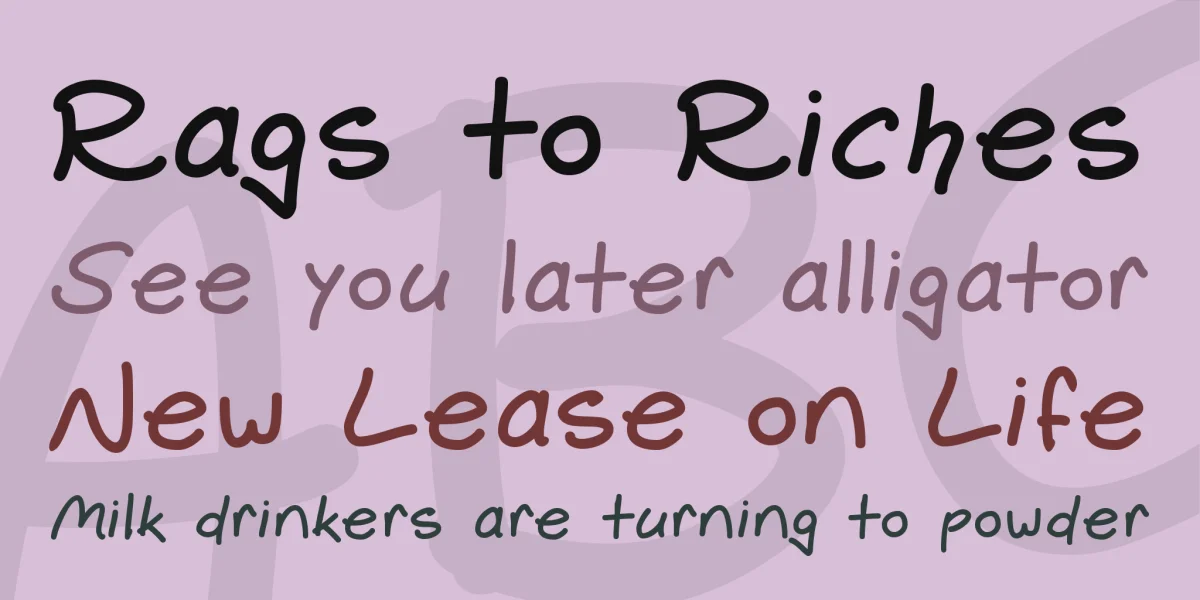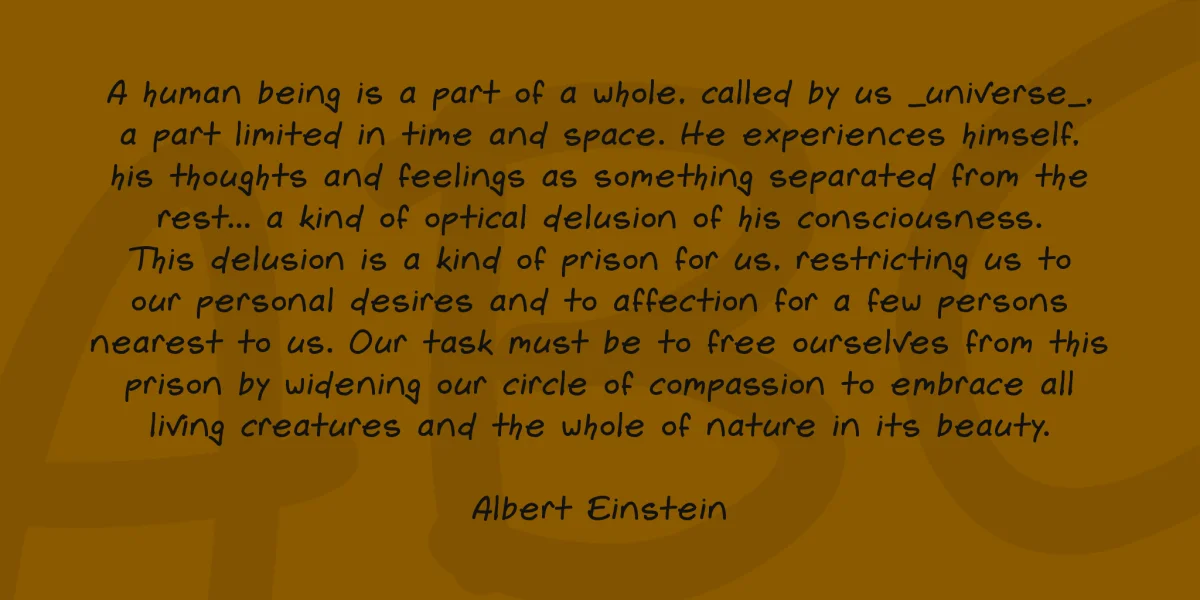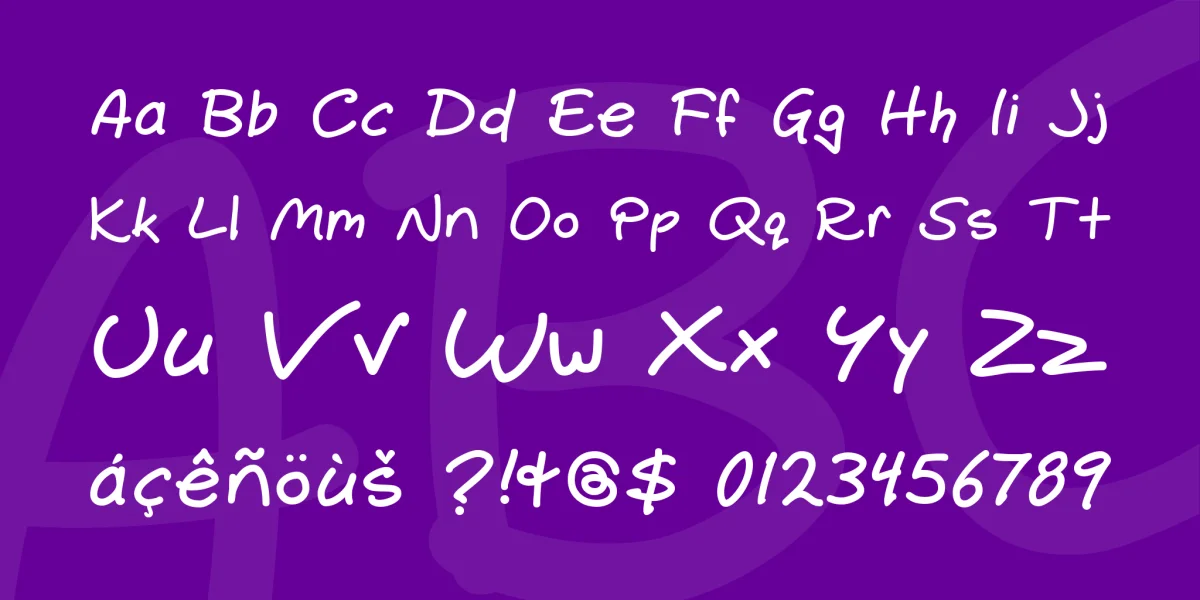
Gemelli is based in my own handwriting. Dreadful, yet fully legible.
It's named after a noodle!
Includes a full character set, with accents and special characters.